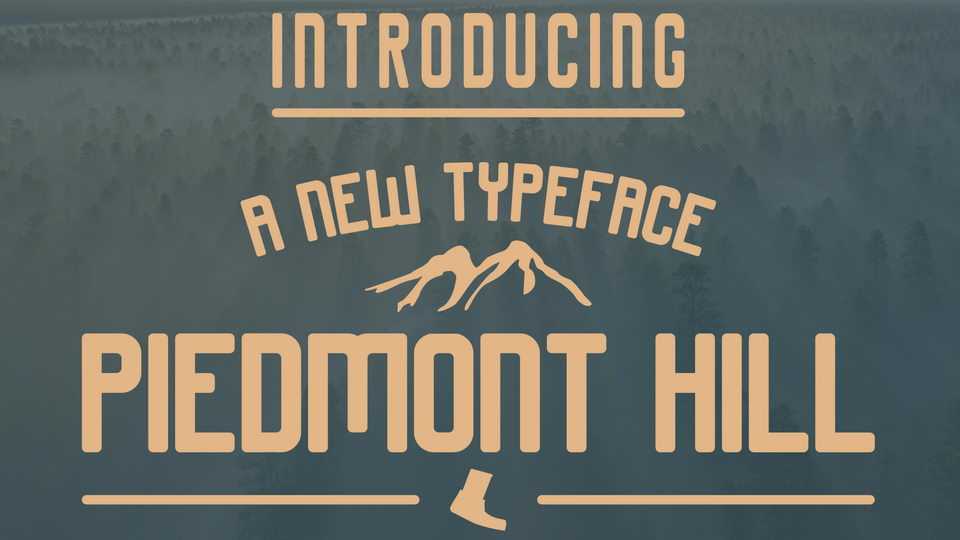
Download Piedmont Hill font, a handmade vintage style display typeface. Piedmond Hill font has a great readability and will give your design a striking look.
Designer: Rivo Dwi Adriansyah